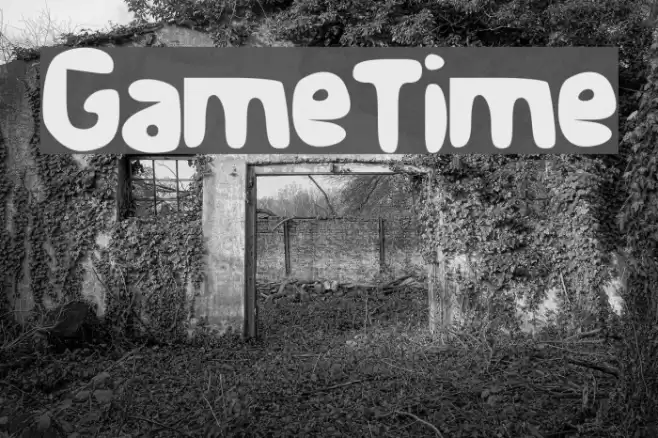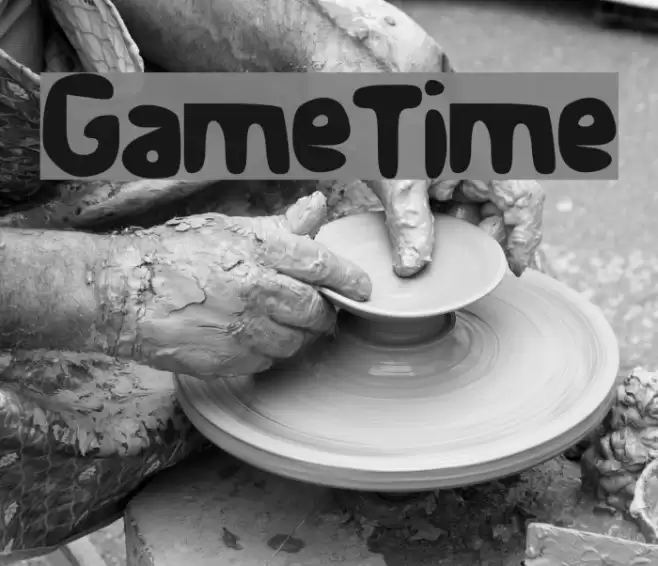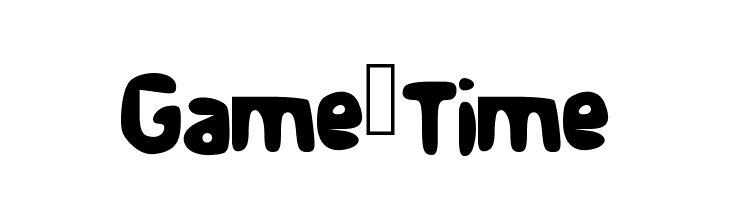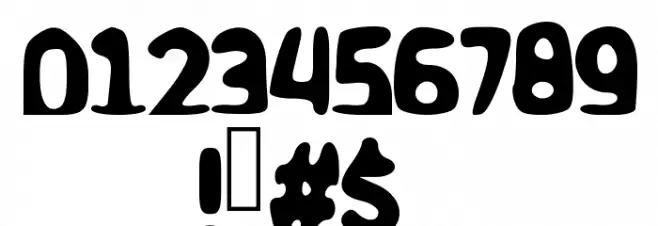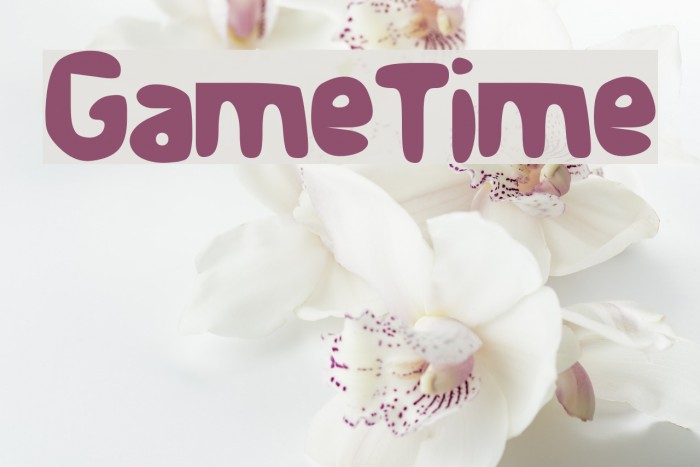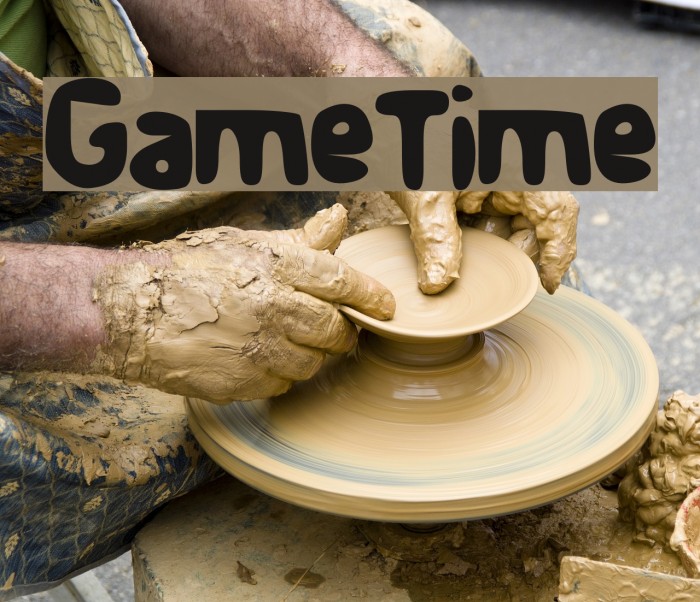
Game_Time Font
Game_Time Description
This playful and bold font features thick, rounded characters that convey a sense of fun and energy. The letters are slightly irregular, adding a whimsical touch that makes it stand out. The uppercase and lowercase letters maintain a consistent style, with the lowercase characters being slightly more compact. The numbers and special characters follow the same playful design, ensuring a cohesive look across all text elements. This font's unique style makes it ideal for projects that require a lively and engaging appearance.
A bold, playful font with thick, rounded characters and a whimsical style from Distorted Eroded fonts.
- Proposed Projects: Perfect for children's books, game titles, playful branding, and event posters.
- Overall Style: Playful